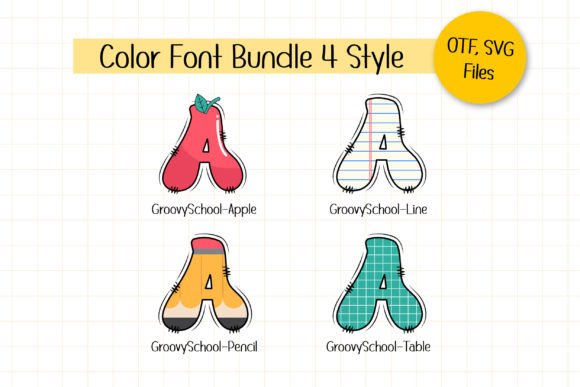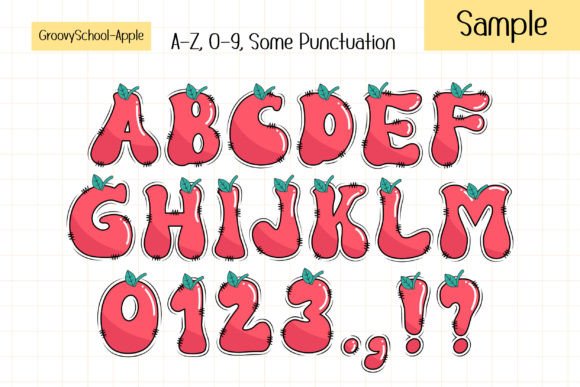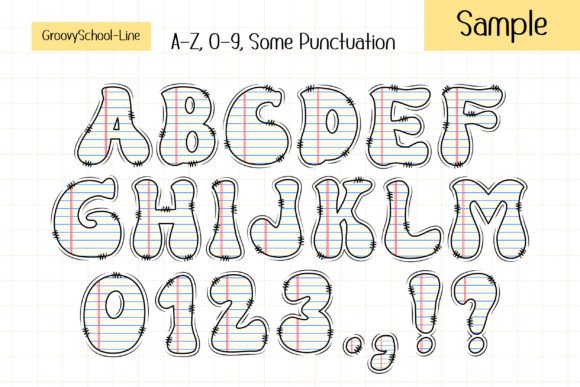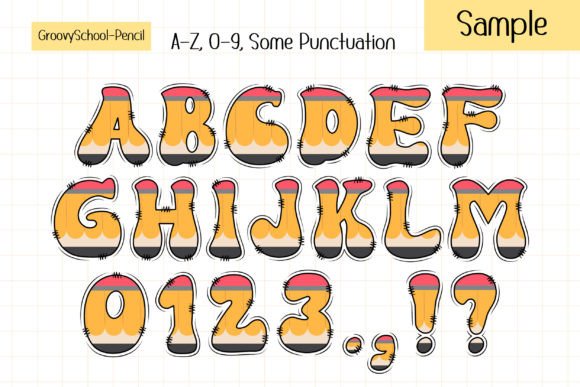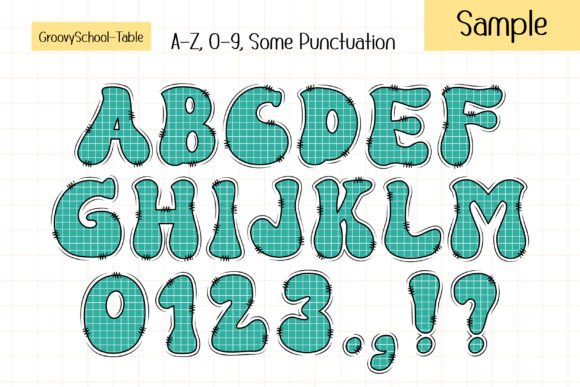
Get Ready to Bring Back the Magic of School Days with the Groovy School Font
Do you remember the thrill of doodling in your notebook during class, or the excitement of creating colorful posters for the school fair? For many of us, school days were a time of creativity and self-expression. Now, you can recapture that magic with the Groovy School Font, a fun and playful font designed to bring the vibrant energy of school to life.
This dynamic font set is packed with 4 unique fonts and 20 matching school doodles, making it the perfect tool for designers looking to add a touch of whimsy to their projects. Whether you’re creating instructional media, designing posters, or personalizing names, the Groovy School Font offers endless creative possibilities. And with its compatibility with popular cutting machines and design programs, you can bring your ideas to life with ease.
Groovy School Font Key Features
- Unique Characteristics: Groovy School Font features a unique, playful design with rounded edges and whimsical details, perfect for adding a touch of nostalgia to educational materials.
- Font Style: The font is available in a single style, but it can be used in various font weights, from light to bold, to achieve the desired visual effect.
Groovy School Font Review
Overall, I’m quite impressed with the Groovy School Font. It’s a fun, energetic font that’s perfect for projects that need a retro vibe ✨. The font has a nice balance of playfulness and sophistication, making it suitable for a wide range of applications.
- Fun and energetic feel ✨
- Nice balance of playfulness and sophistication
- Perfect for projects that need a retro vibe
However, there are a few limitations that might make it less suitable for some projects ⚠️:
- Not ideal for body text, as it can be difficult to read in large quantities
- Might not be the best choice for projects that require a professional, corporate look
- Can be a bit too loud and overpowering if used in excess
Overall, I think the Groovy School Font is a great addition to any designer’s toolkit. While it may have some limitations, its unique personality and style make it a great choice for projects that need a bit of flair ✨.
For the most effective use of Groovy School Font, consider the following tips:
– Use it for titles, headings, and emphasis.
– Pair it with a clean, sans-serif font for body text.
– Use it for educational materials, such as worksheets, handouts, and presentations.
– Use it for branding and marketing materials, such as logos, business cards, and brochures.